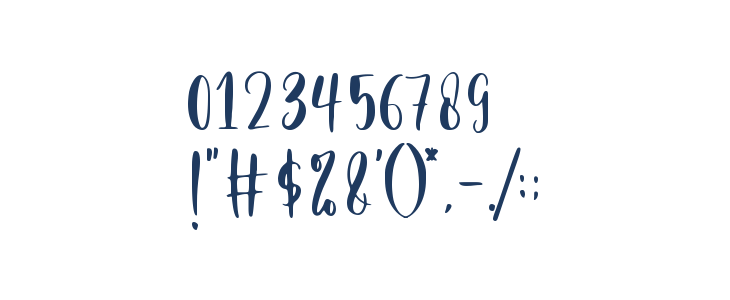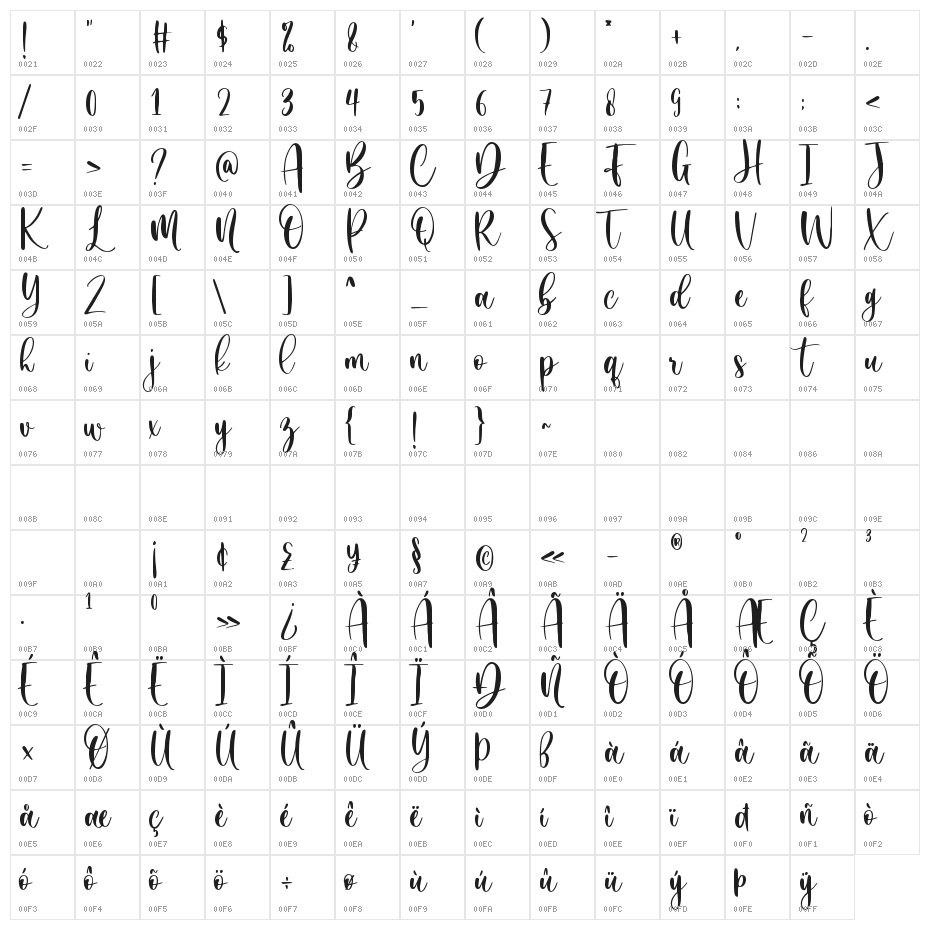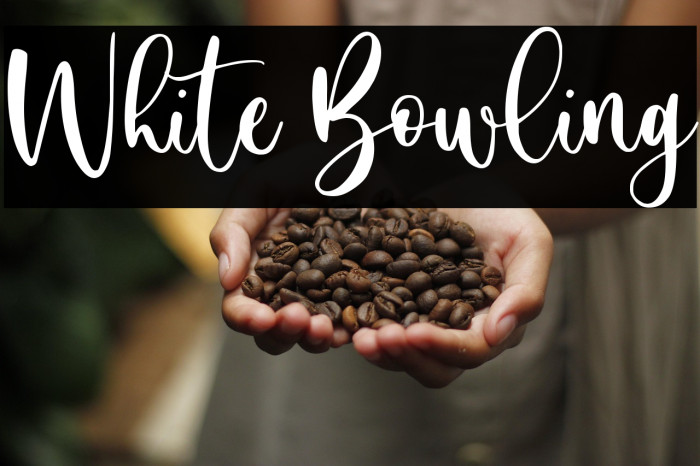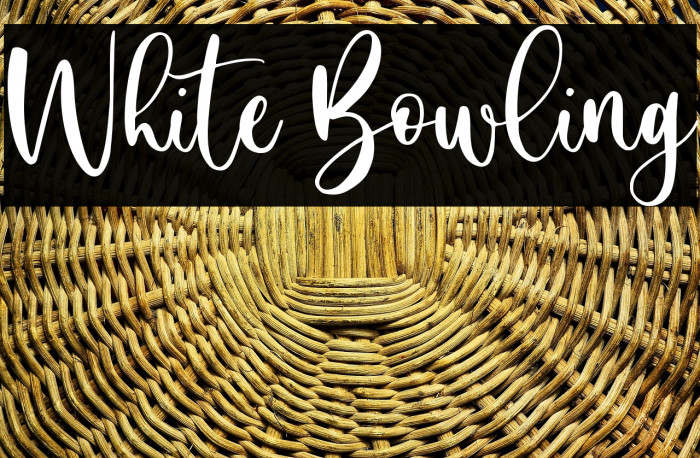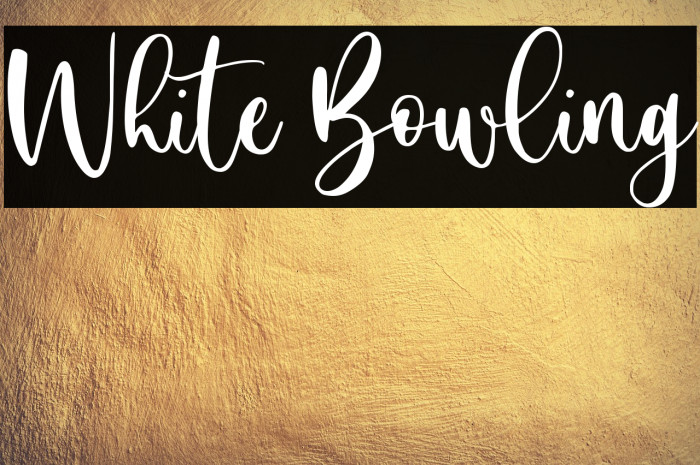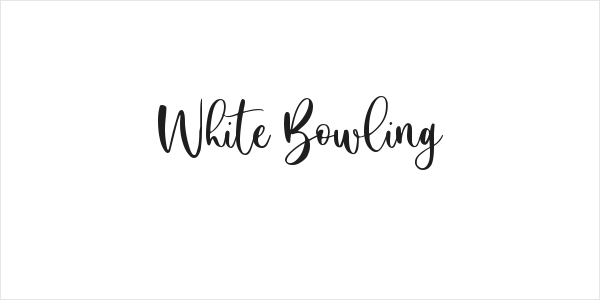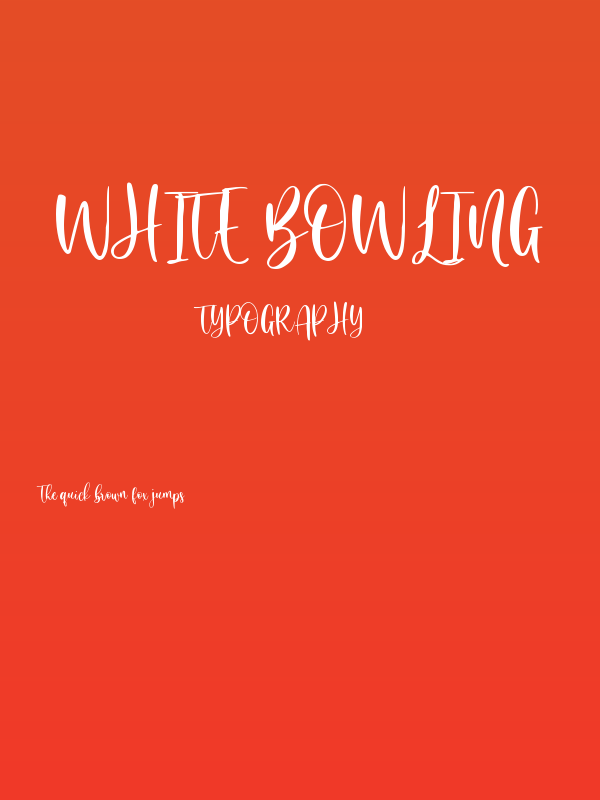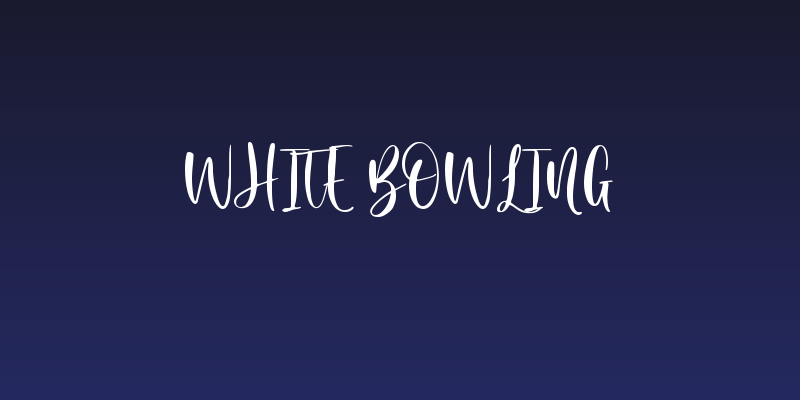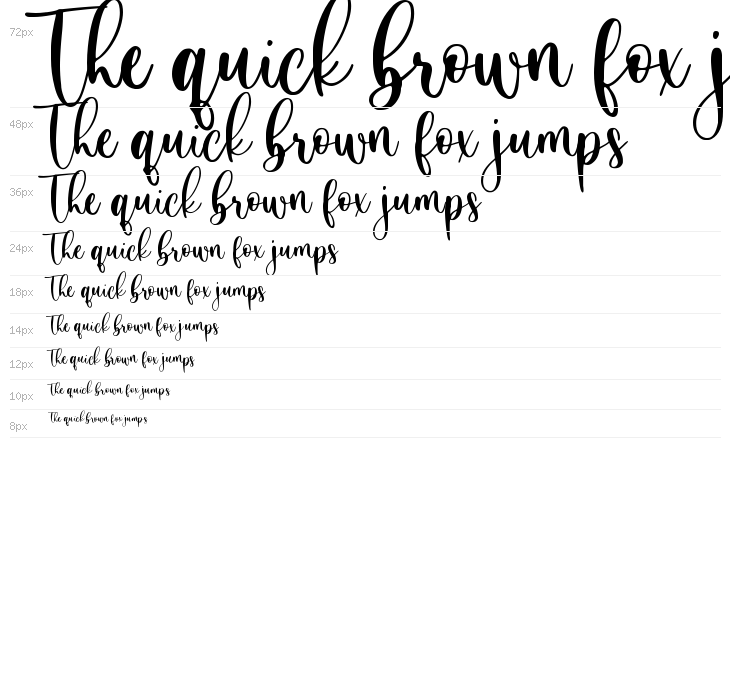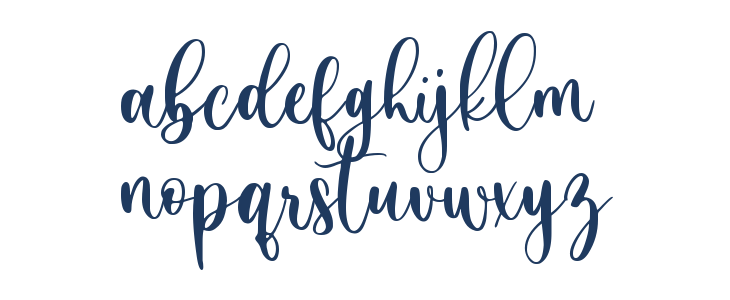
White Bowling Font
White Bowling Description
This font features a lively and expressive handwritten style, characterized by its flowing, cursive letterforms. The uppercase letters exhibit a playful yet elegant flair, with varying stroke widths that add a dynamic quality to the text. The lowercase letters maintain a consistent style, complementing the uppercase with smooth curves and loops. Numbers and special characters are designed to match the overall aesthetic, ensuring a cohesive look across all elements. The font's organic feel and artistic touch make it suitable for creative projects that require a personal and inviting tone.
| Proposed Projects | Ideal for wedding invitations, greeting cards, branding projects, and social media graphics. |